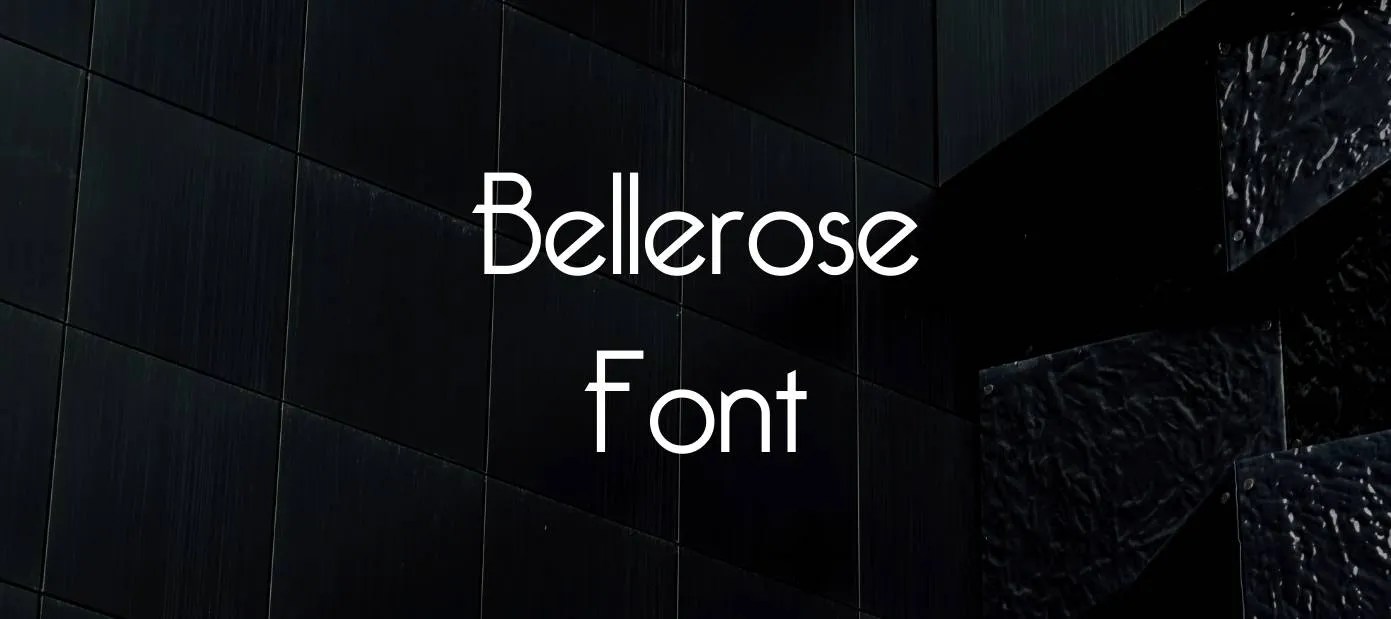
Bellerose Font . The font subfamily is regular. Download bellerose font from free cdn or use it on your website as webfont. Click the download button to download the compressed file in.zip format. Bellerose™ pro medium is the middle weight version our most popular font. The bellerose pro family is also now available for a single, discounted. Bellerose is a free font for commercial use created by harris design. Bellerose is the perfect font for all your fun designs. Bellerose font download is available free from fontget. Bellerose à by harris design. Moreover, you can embed it to your website. 3,637,147 downloads (66 yesterday) 23 comments shareware.
Bellerose™ pro medium is the middle weight version our most popular font. Bellerose à by harris design. Moreover, you can embed it to your website. Download bellerose font from free cdn or use it on your website as webfont. Click the download button to download the compressed file in.zip format. Bellerose font download is available free from fontget. The bellerose pro family is also now available for a single, discounted. Bellerose is a free font for commercial use created by harris design. The font subfamily is regular. 3,637,147 downloads (66 yesterday) 23 comments shareware.
Bellerose Font Bellerose is a free font for commercial use created by harris design. The font subfamily is regular. Bellerose™ pro medium is the middle weight version our most popular font. Bellerose is a free font for commercial use created by harris design. Bellerose à by harris design. Moreover, you can embed it to your website. 3,637,147 downloads (66 yesterday) 23 comments shareware. Download bellerose font from free cdn or use it on your website as webfont. The bellerose pro family is also now available for a single, discounted. Bellerose is the perfect font for all your fun designs. Click the download button to download the compressed file in.zip format. Bellerose font download is available free from fontget.
Bellerose Font Free Download Bellerose Font The font subfamily is regular. The bellerose pro family is also now available for a single, discounted. Bellerose à by harris design. Download bellerose font from free cdn or use it on your website as webfont. Bellerose is a free font for commercial use created by harris design. Bellerose font download is available free from fontget. Bellerose is the perfect. Bellerose Font.
Download Bellerose Font Free Font Download Bellerose Font Moreover, you can embed it to your website. Bellerose font download is available free from fontget. Bellerose™ pro medium is the middle weight version our most popular font. Bellerose is the perfect font for all your fun designs. The bellerose pro family is also now available for a single, discounted. Click the download button to download the compressed file in.zip. Bellerose Font.
Bellerose Font blogxp Bellerose Font Download bellerose font from free cdn or use it on your website as webfont. Bellerose is a free font for commercial use created by harris design. Bellerose™ pro medium is the middle weight version our most popular font. Click the download button to download the compressed file in.zip format. Bellerose à by harris design. The font subfamily is regular. The. Bellerose Font.
Bellerose Font Bellerose is a free font for commercial use created by harris design. Moreover, you can embed it to your website. Bellerose à by harris design. The bellerose pro family is also now available for a single, discounted. 3,637,147 downloads (66 yesterday) 23 comments shareware. Click the download button to download the compressed file in.zip format. Bellerose is the perfect font. Bellerose Font.
Bellerose free font Bellerose Font 3,637,147 downloads (66 yesterday) 23 comments shareware. The bellerose pro family is also now available for a single, discounted. Bellerose is a free font for commercial use created by harris design. Click the download button to download the compressed file in.zip format. The font subfamily is regular. Bellerose à by harris design. Moreover, you can embed it to your website.. Bellerose Font.
Bellerose Font Free Download Bellerose Font Download bellerose font from free cdn or use it on your website as webfont. 3,637,147 downloads (66 yesterday) 23 comments shareware. Moreover, you can embed it to your website. Bellerose font download is available free from fontget. Click the download button to download the compressed file in.zip format. Bellerose™ pro medium is the middle weight version our most popular font.. Bellerose Font.